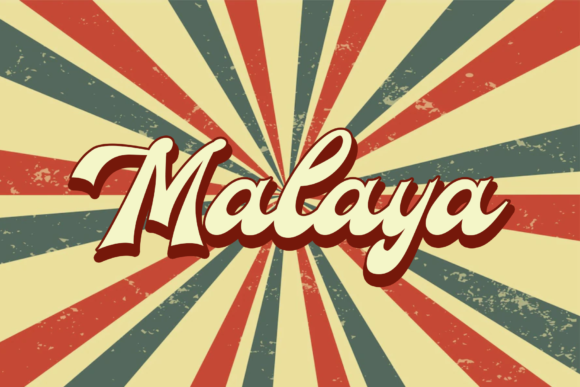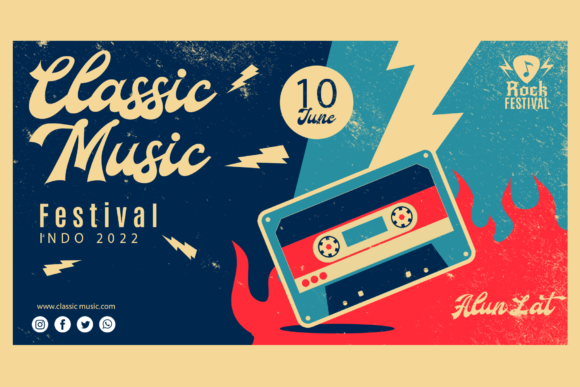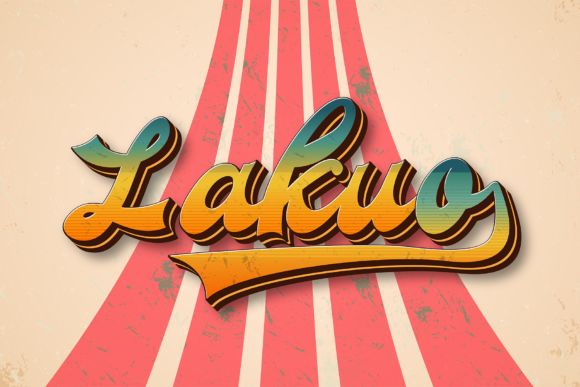
Introduction to Lakuo Font
Have you ever stared at a blank page, trying to find the perfect font to bring your creative project to life? The blank slate can be daunting, but sometimes all it takes is one font to spark the magic. For designers, the search for that elusive perfect font can be a never-ending journey. But what if I told you that your search might be over with the introduction of the Lakuo Font?
This stunning retro display font is a game-changer for any creative project. With its high-quality design and versatility, the Lakuo Font is perfect for adding a touch of elegance to your stationery, letterheads, and titles. Whether you’re working on a personal project or a commercial design, the Lakuo Font is a valuable addition to your design resource arsenal.
Lakuo Font
- High-quality, professional font designed for creative projects, perfect for designers and artists.
- Unique characteristics: Lakuo Font features a modern, elegant design with clean lines and subtle texture, making it perfect for a wide range of creative projects.
- Designed to be versatile and easy to use, Lakuo Font is an excellent addition to any designer’s toolkit or design resource library.
Honest Review: Lakuo Font
Lakuo Font has caught my attention recently, and I’m excited to share my thoughts on this design resource. As a designer, I appreciate a high-quality font that can elevate my creative project. With Lakuo Font, I’m impressed by its sleek and modern design. The font is perfect for modern branding and can be used for various design elements, from logos to typography.
- ✨ Unique and modern design that can set your project apart
- ✨ High-quality font that looks great on both desktop and mobile devices
- ⚠️ Limited character set, which may not be ideal for extensive text-based projects
- ⚠️ Not suitable for projects that require a lot of custom font manipulation
Overall, I’m impressed with Lakuo Font’s unique design and high-quality performance. While it may have some limitations, it’s an excellent addition to any designer’s toolkit, especially for creative projects that require a modern and sleek look.
Tips for Getting the Most Out of Lakuo Font
To get the most out of Lakuo Font, experiment with different font sizes, styles, and colors. You can also use the transparent background feature to create unique and eye-catching graphics.
Common Use Cases for Lakuo Font
Lakuo Font is perfect for any creative project that requires a unique and high-quality font. Some common use cases include graphic design, branding, and digital marketing.